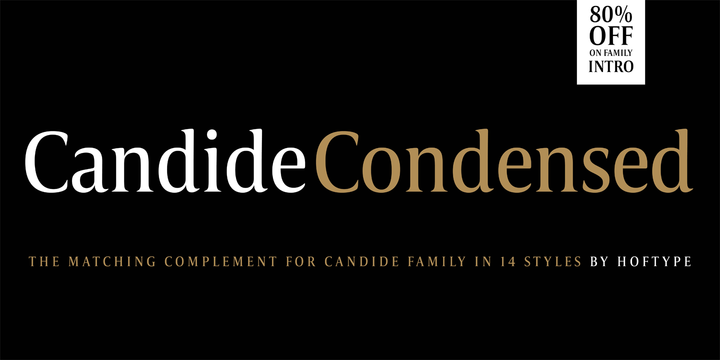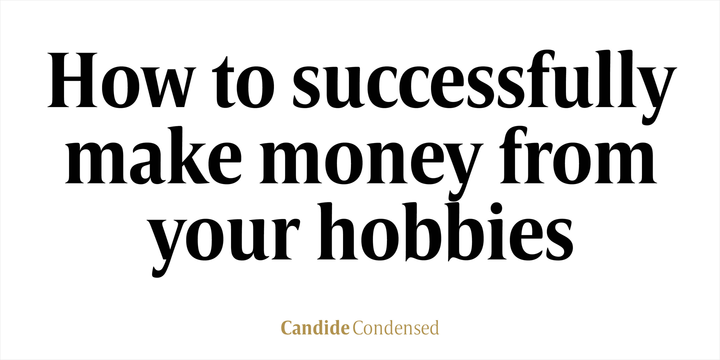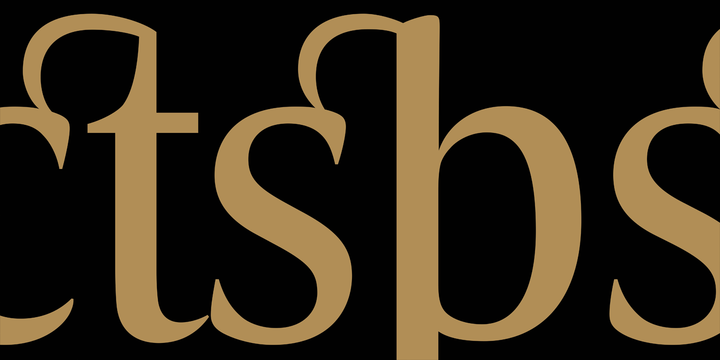
Candide Condensed Font Family
About this font family
Candide Condensed is the complement for and widens greatly the possible applications of the Candide family. Through Its moderately condensed proportions, it also works superbly as a discrete space saving text face.
Candide Condensed comes with the same character layout and features as Candide.
Candide Condensed consists of 16 styles. It comes in OpenType format and provides an extended language support. All weights contain standard and discretionary ligatures, proportional lining figures, tabular lining figures, proportional old style figures, lining old style figures, matching currency symbols, fraction- and scientific numerals, matching arrows and alternative characters.